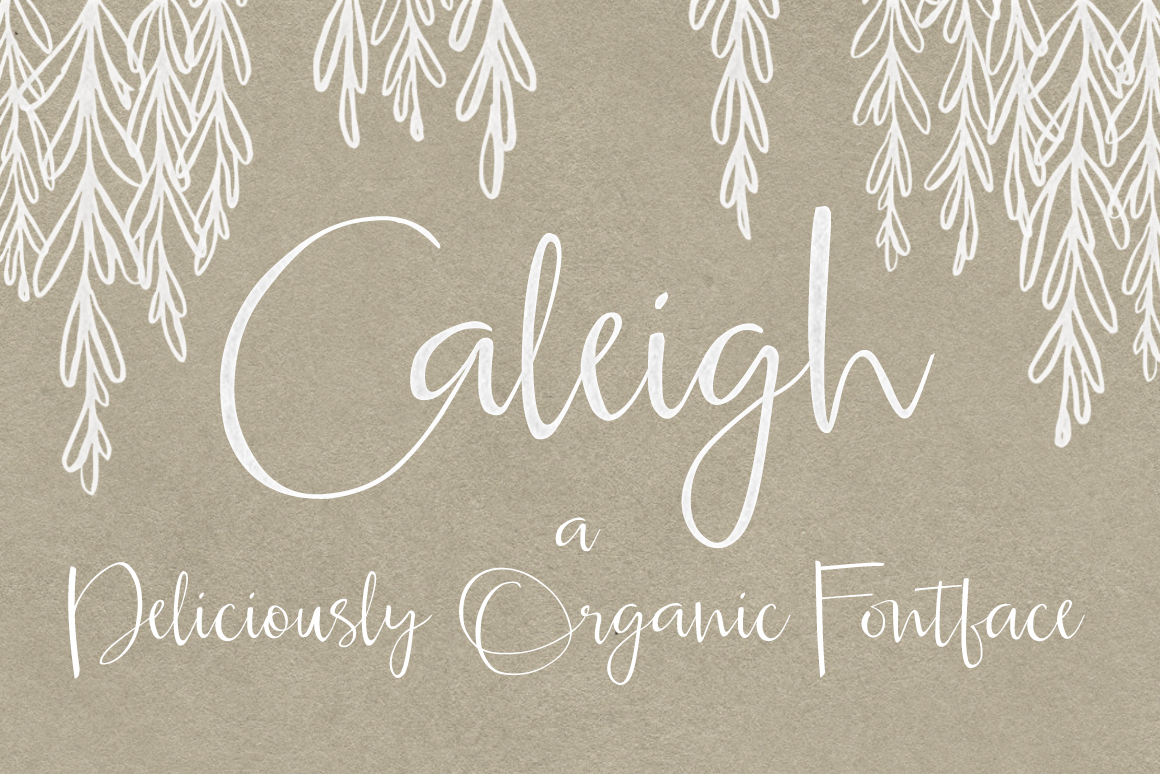
Caleigh Script Font with Bonus
Caleigh is a hand-lettered modern calligraphy script font, that includes discretionary ligatures, contextual alternates, and stylistic alternates. I created this font with large, sweeping, slender capitals, and lowercase that have several alternatives. My goal was to create a beautiful font with nice flow that resembles handwriting. Perfect for invitations, greeting cards, typographical art, logos, letterpress printing, and all sorts of other design projects.
I've made a special shortcut for you to add those cool dots between your numbers, like the ones seen on those fancy hand addressed envelopes. You will be able to quickly add those dots by typing the ^ on your keyboard. Try it out below in the live preview.